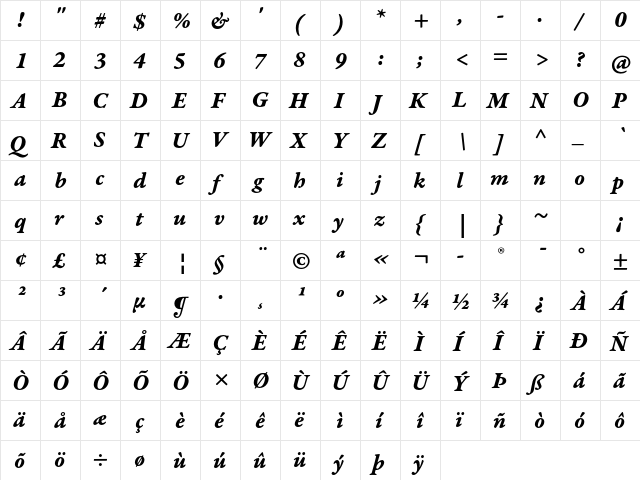
Garamond Premier Pro Bold Italic Caption
| Designer | Robert Slimbach |
Design Context for Garamond Premier Pro Typeface
Garamond Premier Pro is a composed and adaptable typeface that performs quietly and consistently across a wide range of design contexts. The slanted form adds forward momentum and visual energy. Its bold stroke weight gives it real presence on the page.
Pro Tip: Use Garamond Premier Pro for emphasis, pull quotes, and subheadings where its slanted energy can add rhythm to the layout.